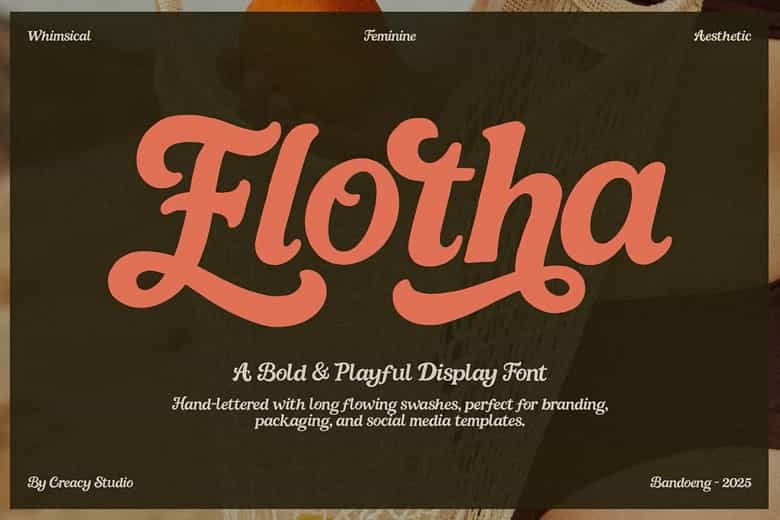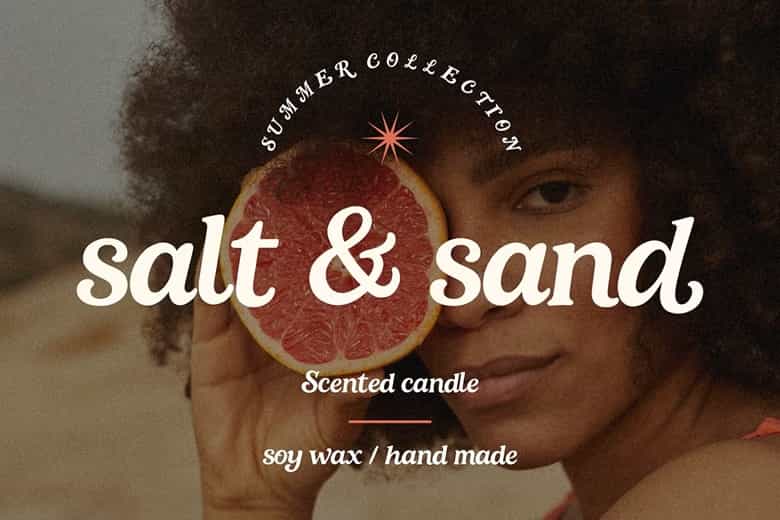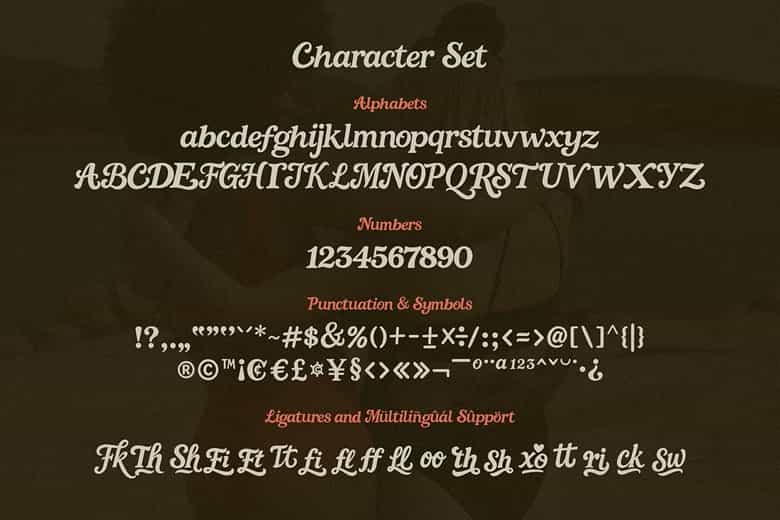
Flotha is a highly energetic display typeface that could easily be described as boastful, as well as being associated with a lovable aesthetics. Precise brush lettering by hand with a brush pen rather than a sketch, each of which is aimed at character and style – suitable for branding, IG-templates, gift wrapping, invitations, etc.